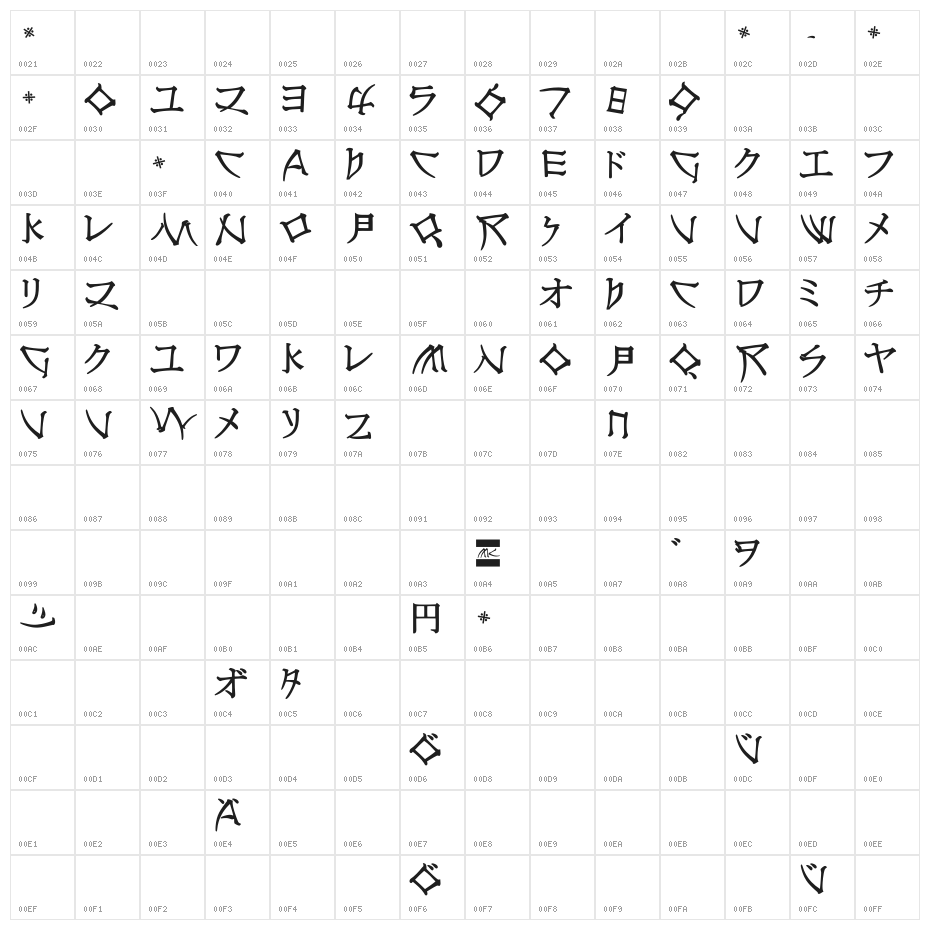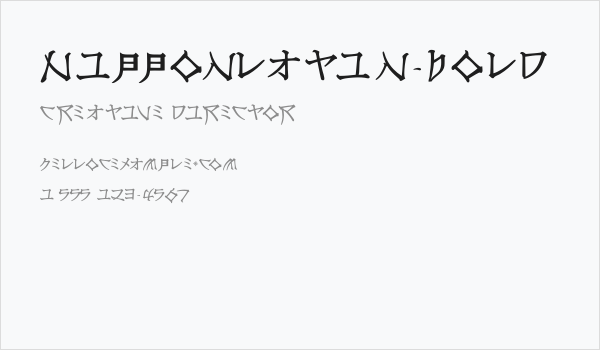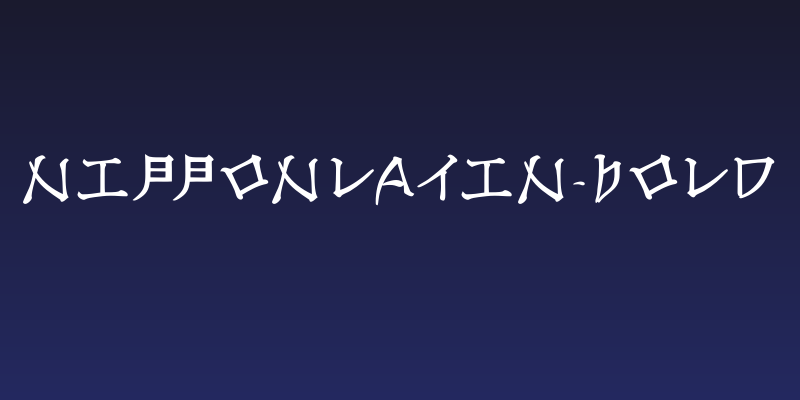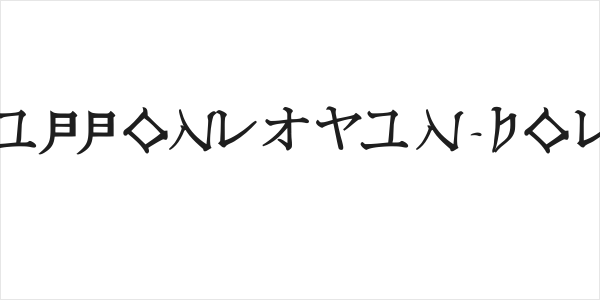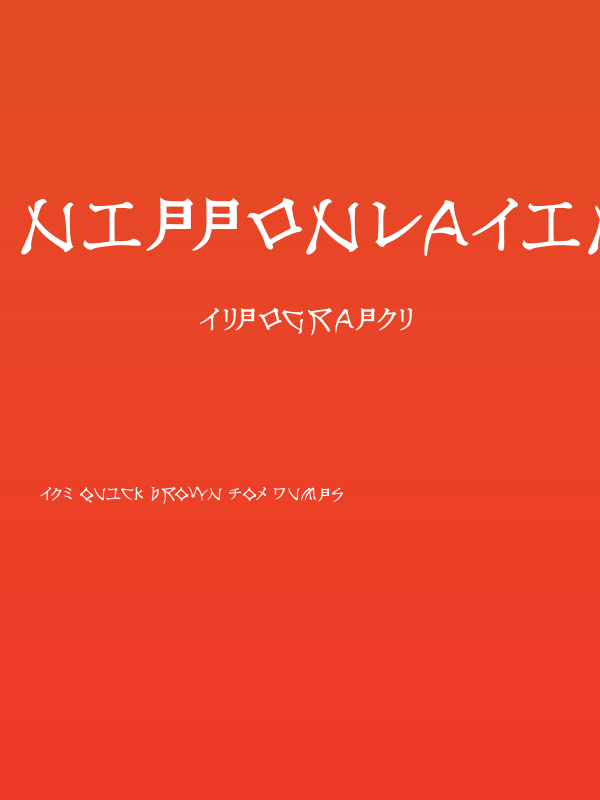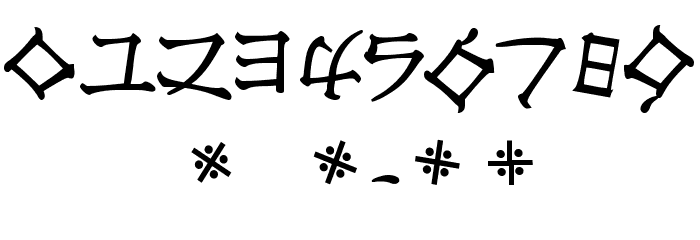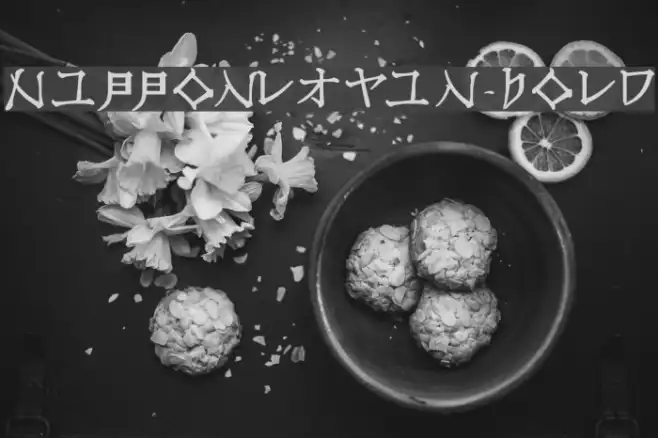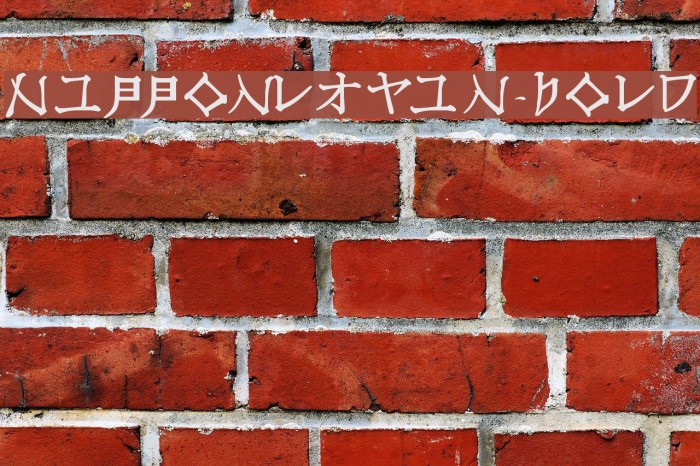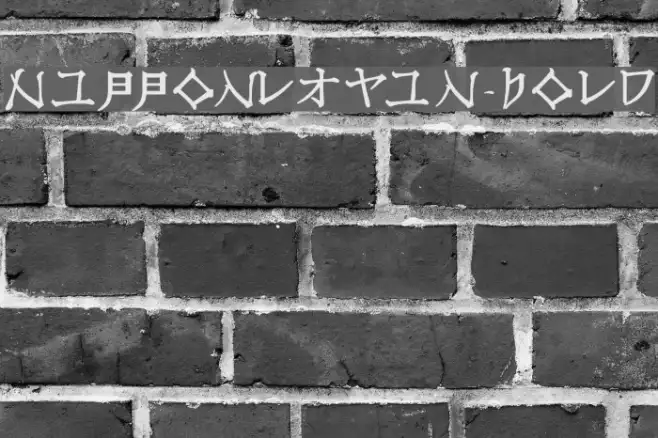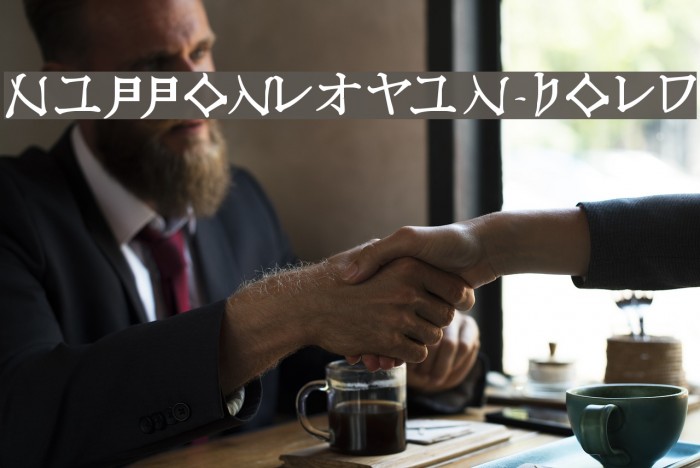
NipponLatin-Bold Font
NipponLatin-Bold Description
This font features a unique blend of traditional and modern elements, characterized by its bold, angular strokes and distinctive geometric shapes. The characters exhibit a strong presence with sharp edges and a slightly condensed form, giving it a dynamic and energetic appearance. The uppercase and lowercase letters maintain a consistent style, with a noticeable emphasis on vertical and horizontal lines. The numerals and special characters complement the overall aesthetic, adding to its versatility. This font's design is reminiscent of calligraphic influences, yet it maintains a contemporary feel suitable for various design applications.
| Proposed Projects | Ideal for branding, posters, and headlines that require a bold and distinctive look. |